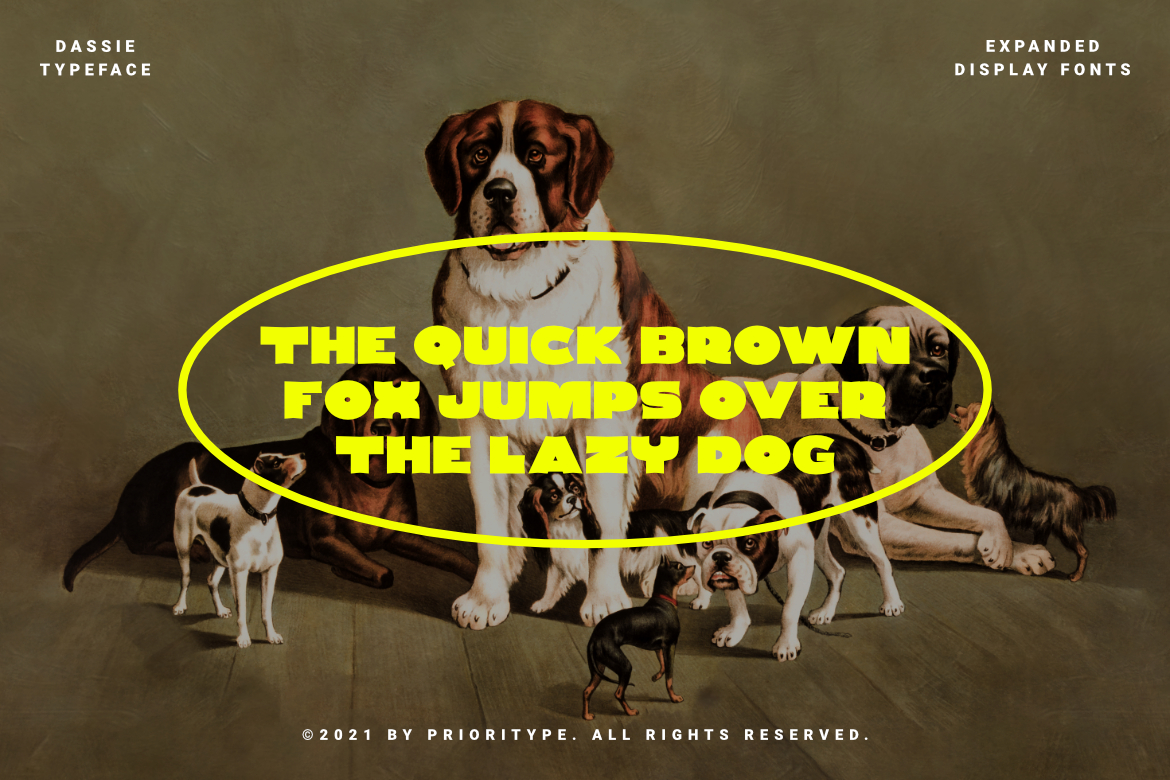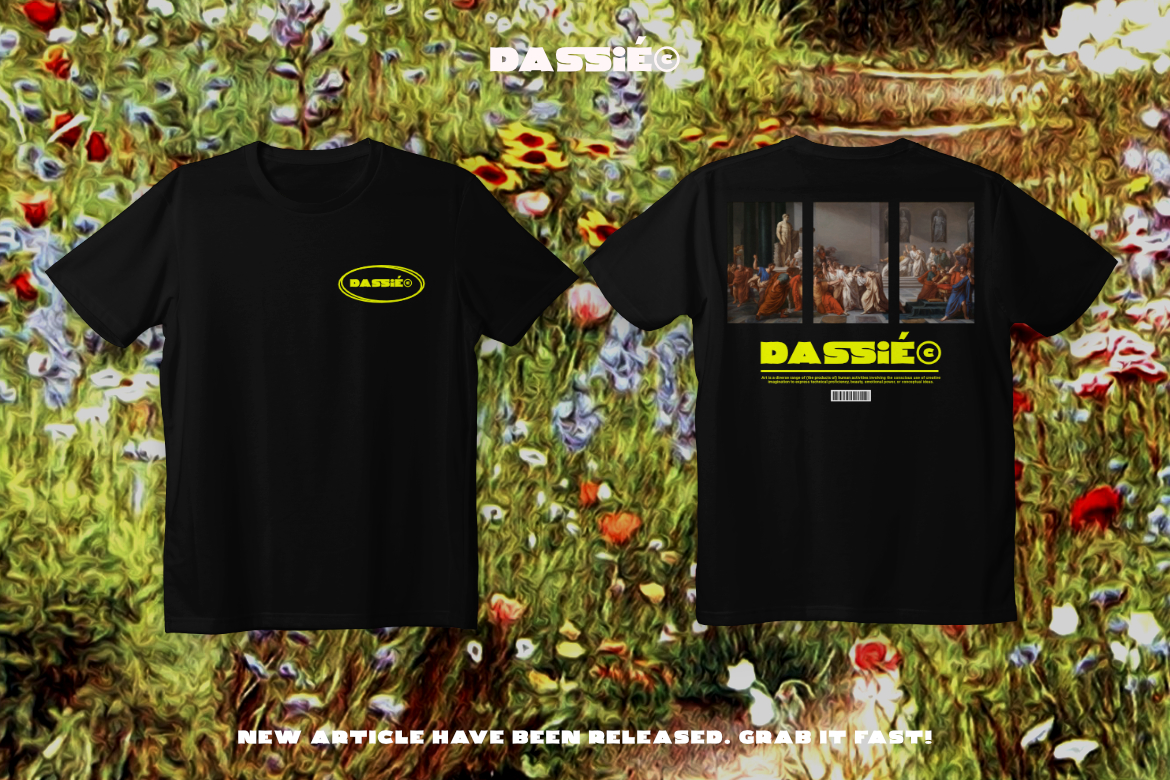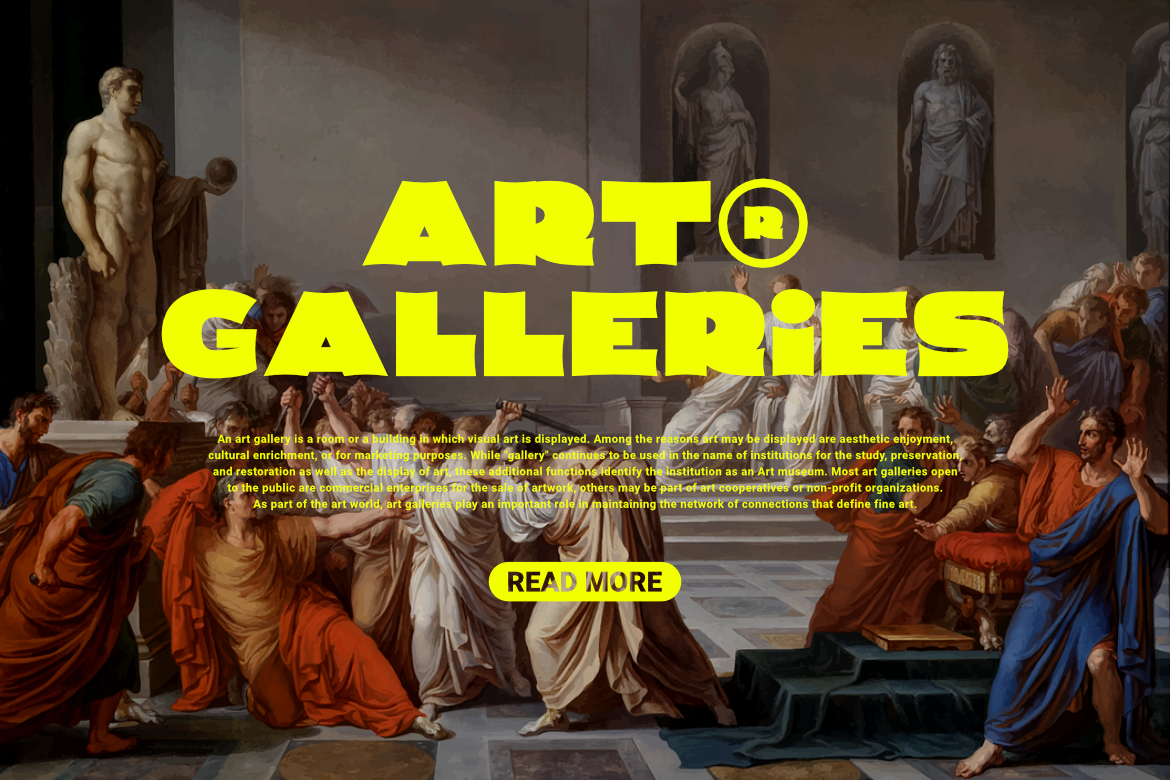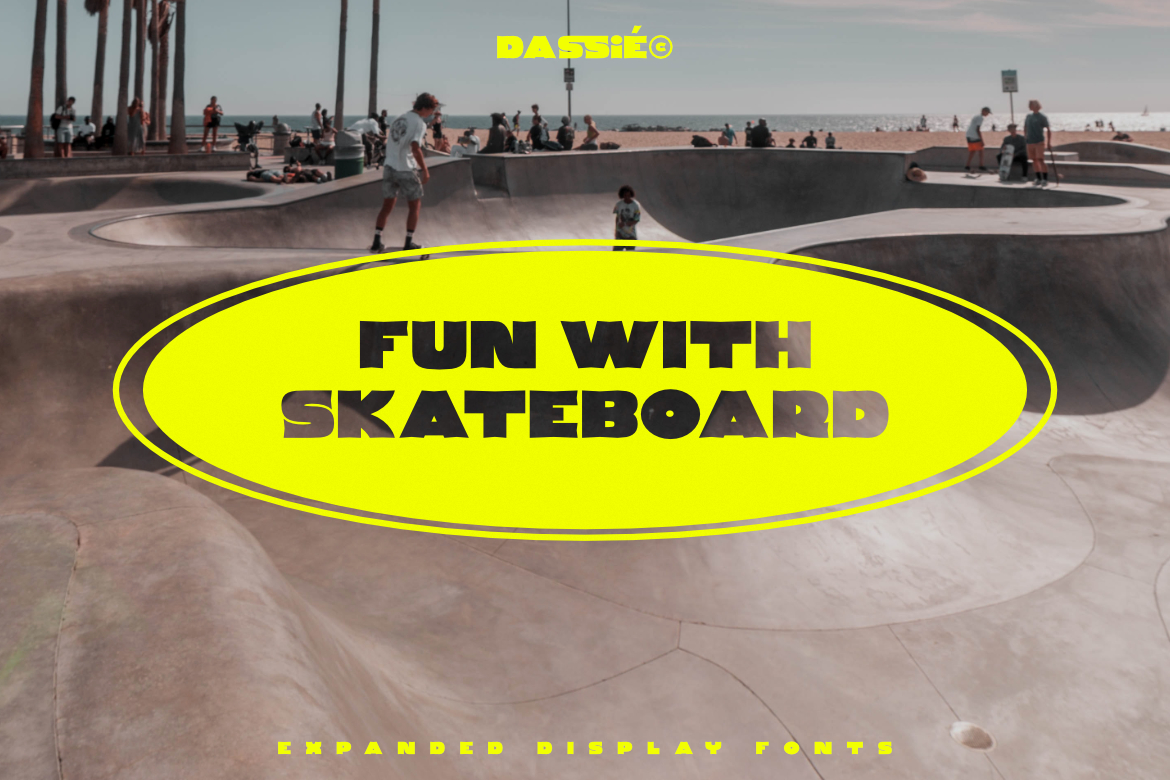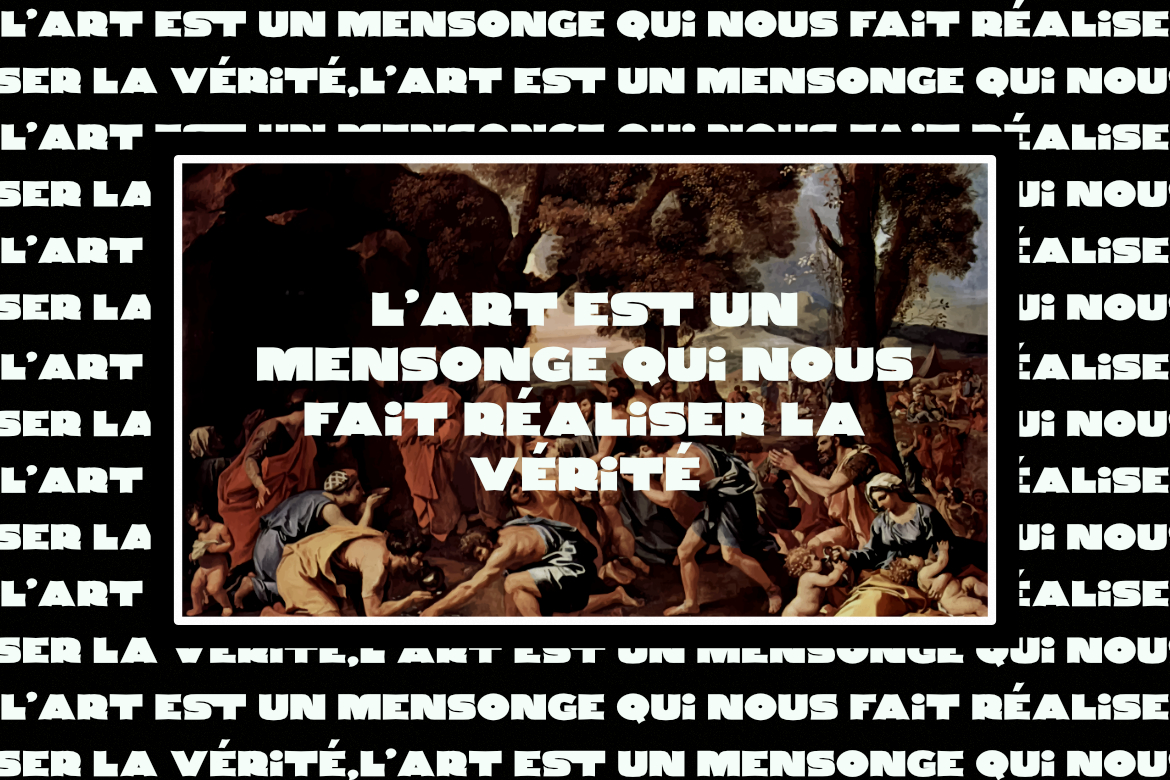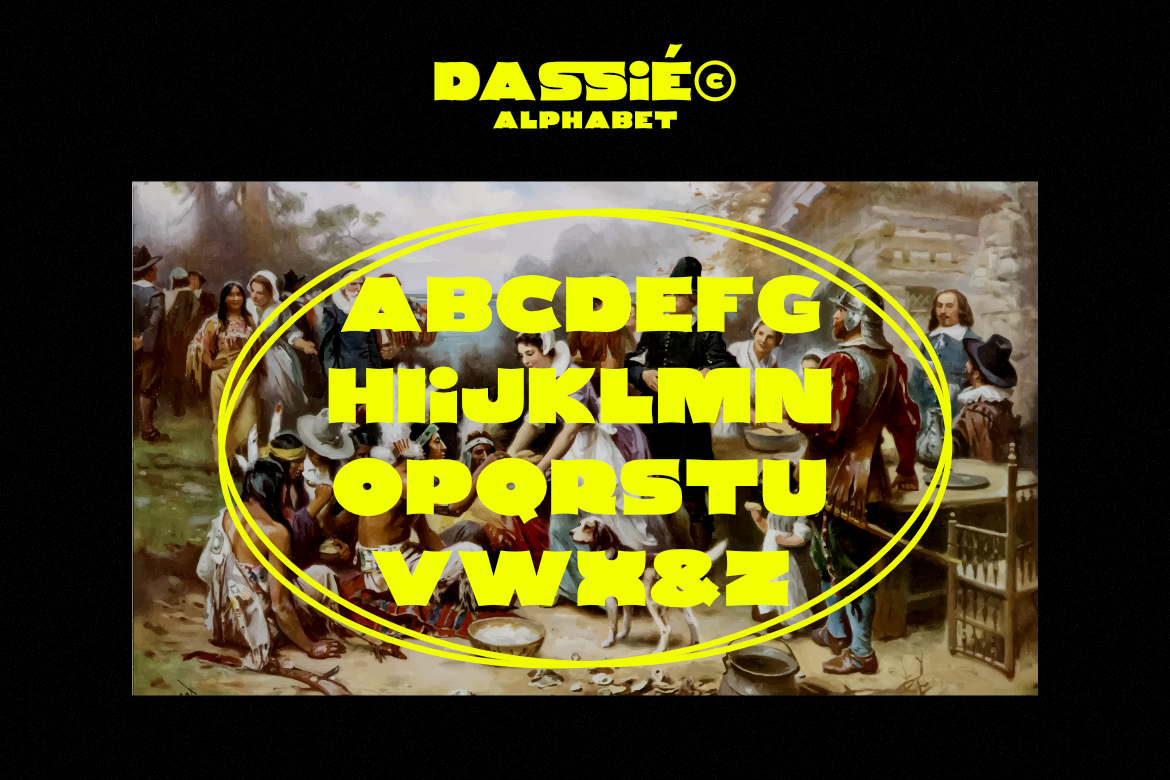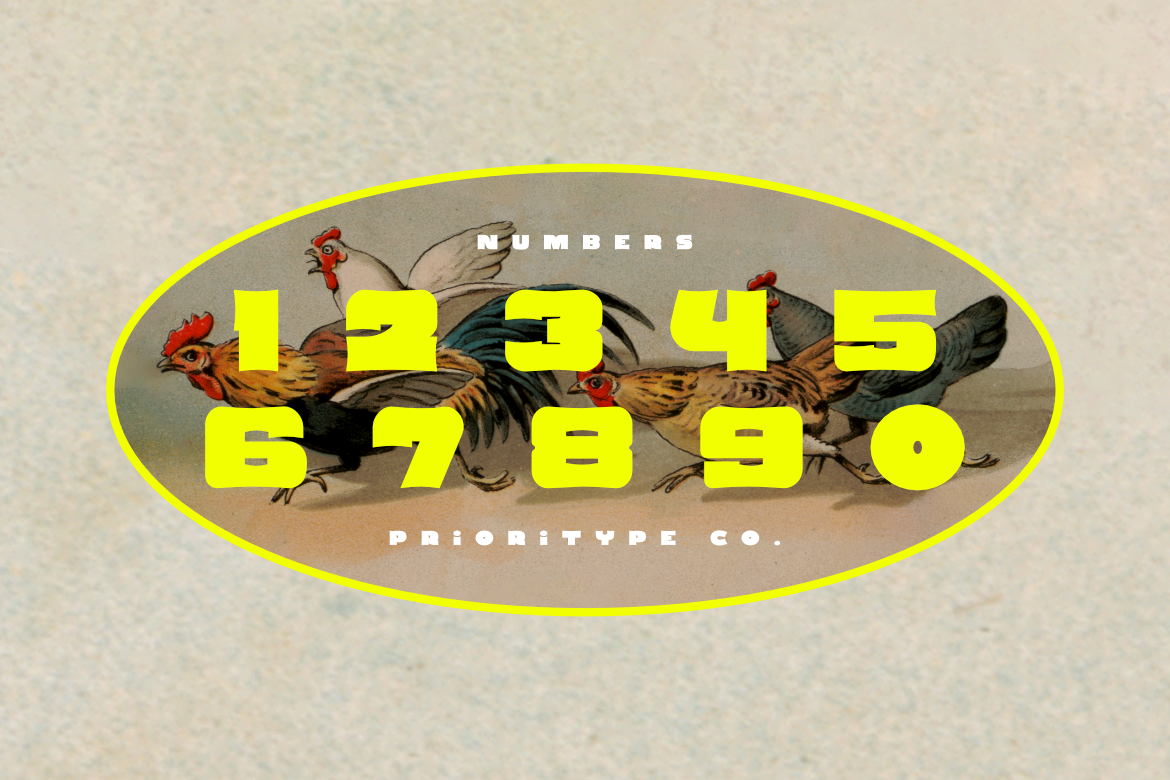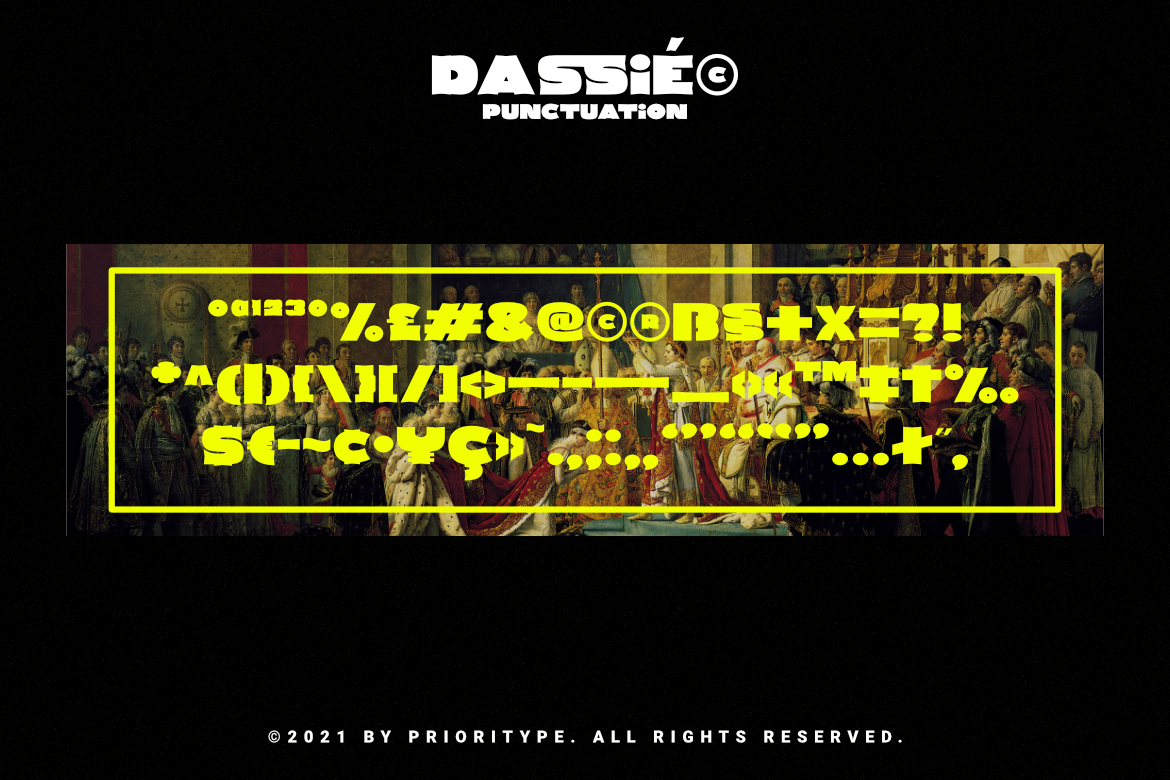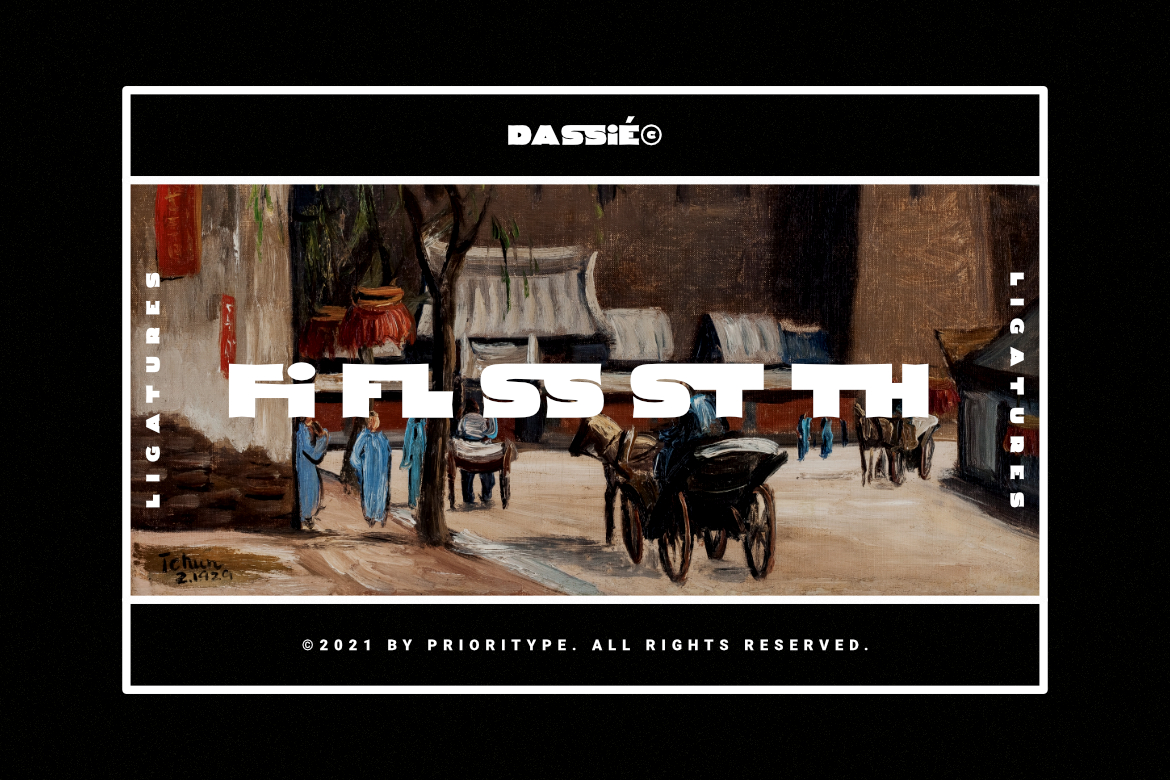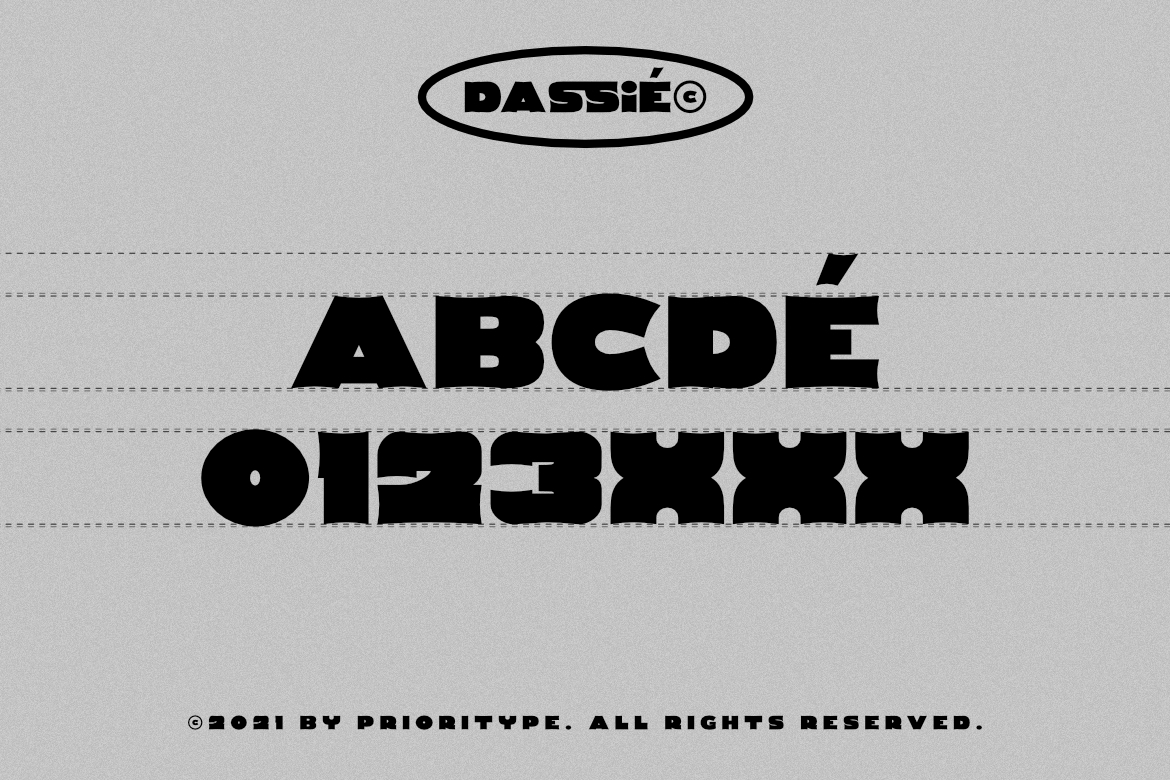
Dassie
Dassie – Expanded Display Fonts.
Cool display fonts are ready to create new ideas for your design projects. It is good to be applied to various types of designs for young people today and goes back to the past. Now you can team up with this font to create t-shirt designs, book covers, posters, logos, landing pages, promotional designs, social media posts etc. See some of the previews above for reference.
- Features: All Caps, Numeral, Punctuation, Multilingual, Opentype Features & PUA Encoded.
- Multilingual contained: Afrikaans, Albanian, Asu, Basque, Bemba, Bena, Breton, Chiga, Cornish, Danish, Dutch, English, Estonian, Filipino, Finnish, French, Friulian, Galician, German, Gusii, Indonesian, IrishItalian, Kabuverdianu, Kalenjin, Kinyarwanda, Luo, Luxembourgish, Luyia, Machame, Makhuwa-Meetto, Makonde, Malagasy, Manx, Morisyen, North Ndebele, Norwegian Bokmål, Norwegian Nynorsk, Nyankole, Oromo, Portuguese, Quechua, Romansh, Rombo, Rundi, Rwa, Samburu, Sango, Sangu, Scottish Gaelic, Sena, Shambala, Shona, Soga, Somali, Spanish, Swahili, Swedish, Swiss German, Taita, Teso, Uzbek (Latin), Volapük, Vunjo, Zulu.